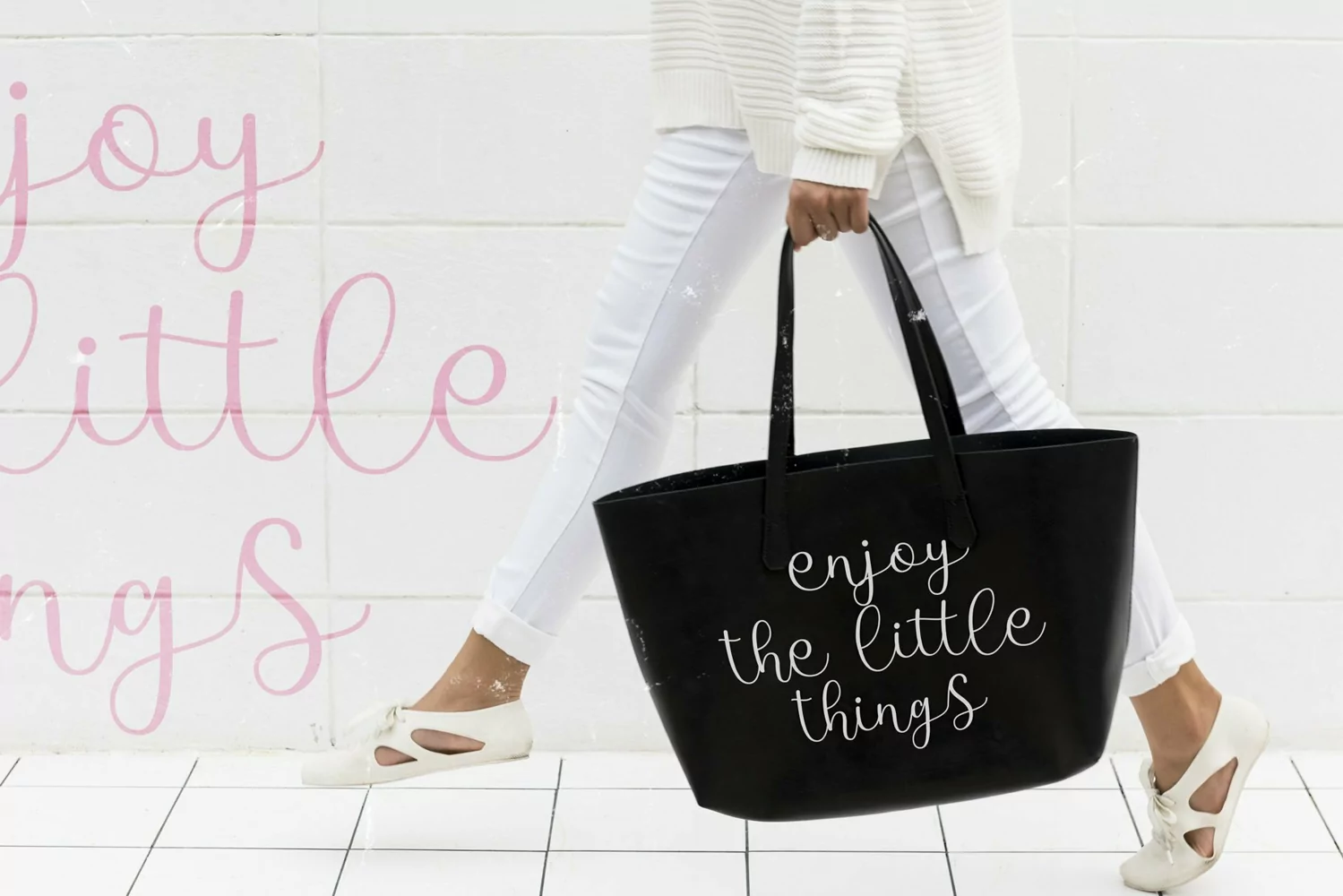
Besaire is a modern calligraphy typeface. Perfect for display, quotes, poster, branding, business card, logo, logotype, print, t-shirt, pin, mug, packaging, merchandise, headline, header, wedding needs, crafting needs and many more.